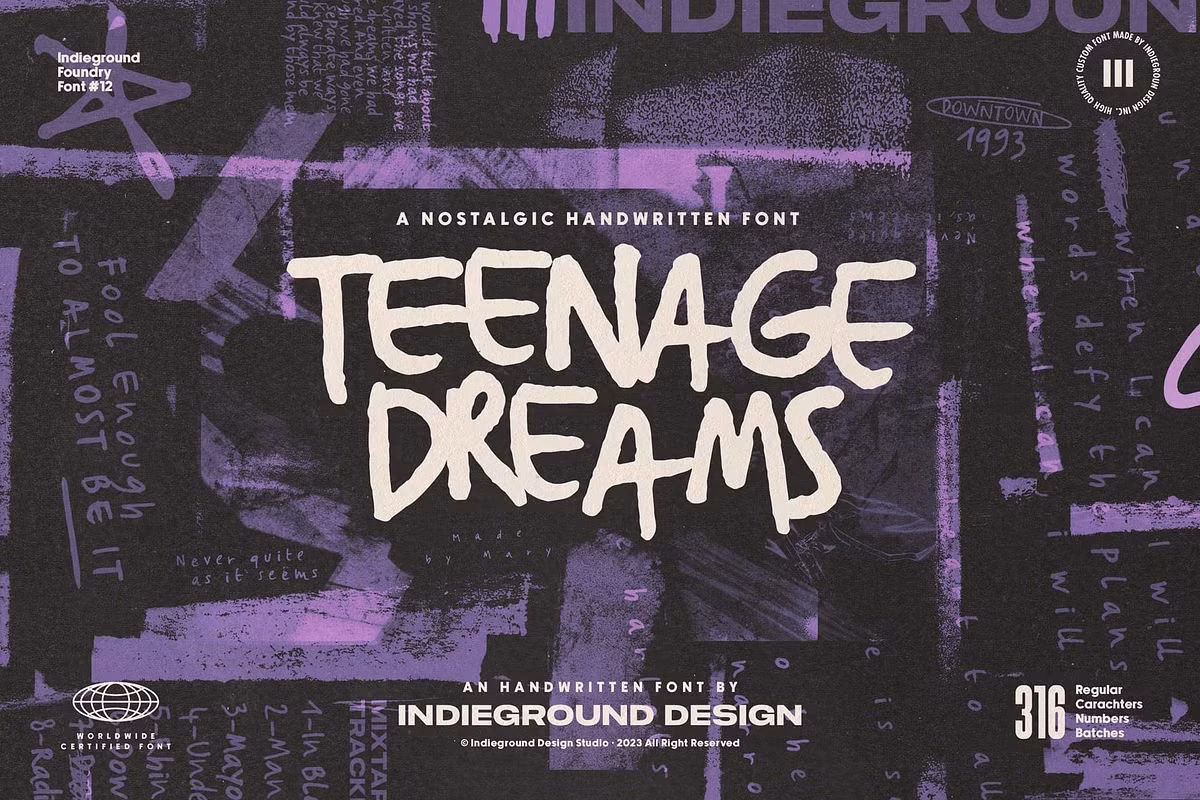
Teenage Dreams Font Free Download is a fun and playful typeface with a youthful, handwritten style. Featuring bold, rounded characters with a sense of whimsy, this font is perfect for projects that need a vibrant, energetic look, such as event invitations, social media graphics, logos, and branding for youth-focused or creative businesses.
Teenage Dreams Font Free Download adds a fun, casual vibe to your designs, making it ideal for creative projects that want to stand out with a fresh, lively feel. Whether you’re designing for a music festival, an artsy brand, or a playful event, this font brings joy and personality to your typography. Download it today and let Teenage Dreams bring a touch of youthful energy to your next project!